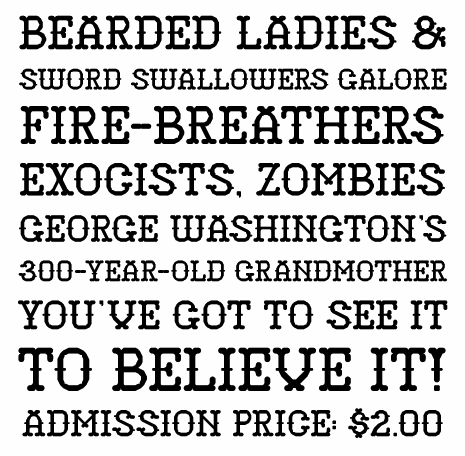
Karolina Lach
Polish / American designer who used FontStruct to create Coney Island Baby (2008: Victorian circus font), Temptation (2008, a crispy serifed face), this Tuscan wood type (2008, done outside FontStruct) and Innocent When You Dream (2008, a dotted lines face). She writes: Karolina Lach is a graphic designer, web designer and typographer residing in New York. She currently works as the Senior Designer for Kiwibox Media, a social network and online magazine for teens. A graduate of The Cooper Union for the Advancement of Science and Art, she has studied under Mike Essl, Emily Oberman, James Craig, Maxim Zhukov and Hannes Famira. Graduate from the type design program at the University of Reading in 2010. She created Sora there in 4 styles, Regular, Italic, Black and Arabic. Karolina tried to give Sora a distinctive Oz Cooper / Frederic Goudy American look. Pompiere (2011, a free font at Google Font Directory, is a low contrast condensed sans serif font with tall ascenders and small x-height, which is based on lettering outside a new York firehouse. Arbutus (2011, a free spiky slab face at Google Web Fonts; see also Arbutus Slab made in 2012) is a sturdy medium contrast slab serif cactus skin font. In 2012, she designed Amarante (art nouveau, Google Font Directory) and Courgette (signage script, Google Font Directory and Sorkin Type). Behance link. Home page in New York City. Behance link. Klingspor link. |